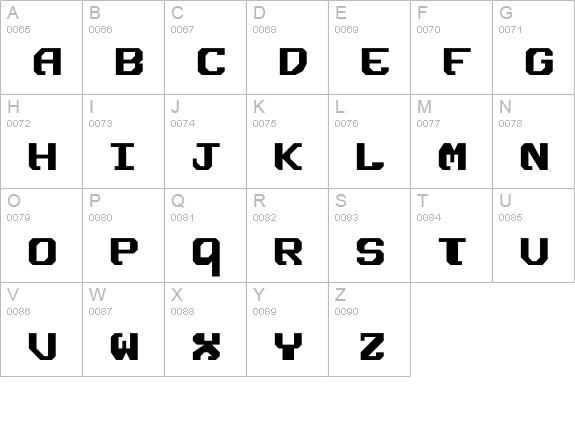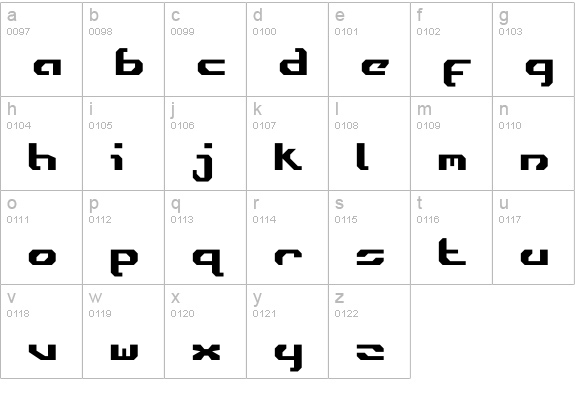
Ensign Flandry Font Details
Ensign Flandry is a striking and elegant font that exudes sophistication and charm. With its unique combination of classic and modern elements, this font is perfect for a wide range of design projects, from branding to elegant invitations. The sleek lines and distinct letterforms of Ensign Flandry make it a versatile choice for both print and digital designs. What makes Ensign Flandry even more appealing is that it is available for free download at FontsMarket.com. This means that you can easily access this beautiful font to elevate your projects without any cost. Don't miss out on the opportunity to enhance your designs with the timeless beauty of Ensign Flandry. Download it today and let your creativity soar!